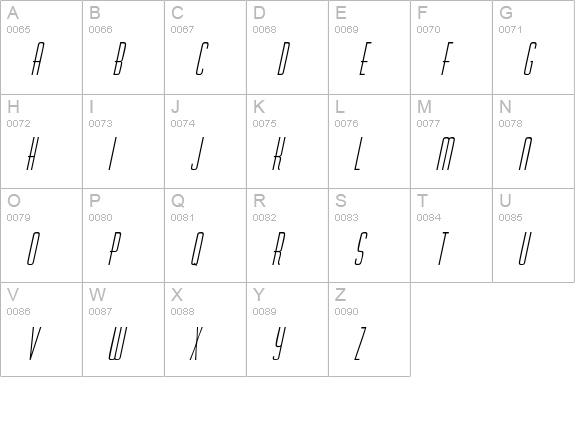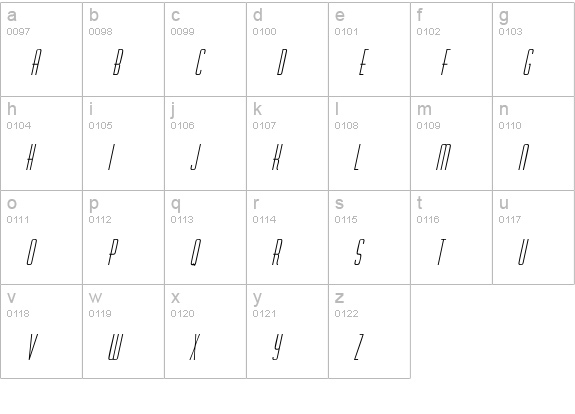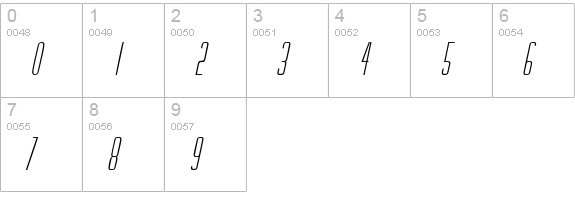
RobaloSCapsSSK Italic Font Details
RobaloSCapsSSK Italic is a distinctive, italic variant in the RobaloSCapsSSK typeface family \xE2\x80\x94 well suited to design and typography projects.
RobaloSCapsSSK Italic font is a stylish and elegant typeface that exudes sophistication and modernity. Its sleek and slanted design adds a touch of flair to any project, making it perfect for headlines, logos, and branding materials. The italicized characters bring a sense of movement and dynamism to your text, creating a visually striking impact. What makes RobaloSCapsSSK Italic font even more appealing is that it is available for free download at FontsMarket.com. This means you can easily access this versatile font without any cost, allowing you to enhance your designs without breaking the bank. Whether you're a professional designer or a hobbyist looking to elevate your projects, RobaloSCapsSSK Italic font is a fantastic choice that combines style, functionality, and accessibility. Download it now and unleash your creativity with this exceptional typeface.